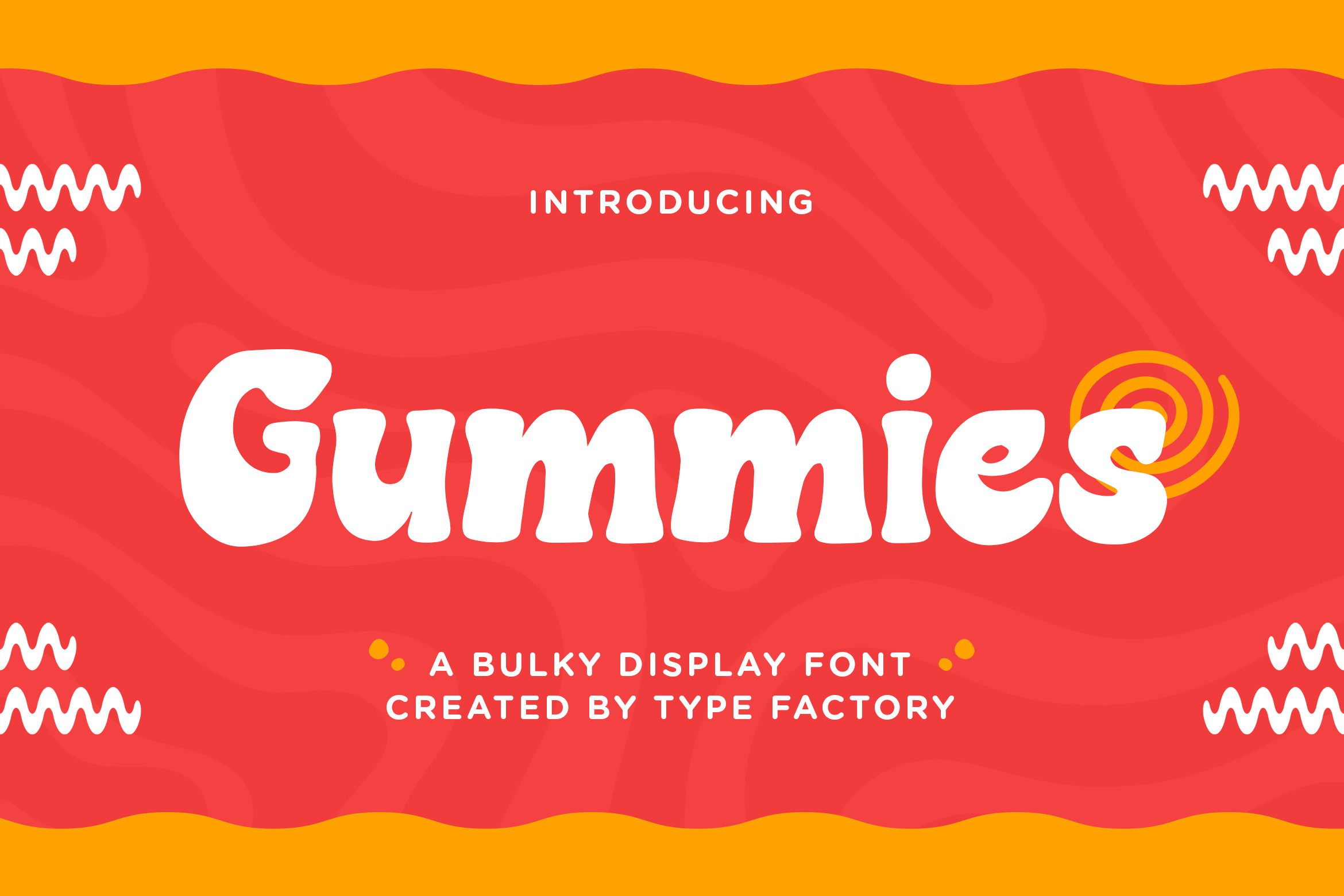
Gummies - Bulky Display Font
Gummies is a playful, cute, and bold display font. Whimsical and a bit unique, this font will brighten up each of your designs. Add it confidently to your projects, and you will love the results.